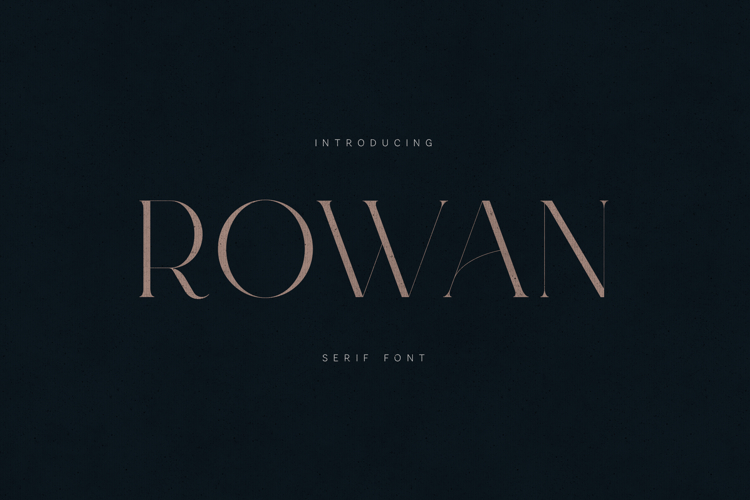
Rowan Elegant Modern Serif Font
Rowan is an elegant modern serif font designed with refined proportions, soft contrast, and graceful details. It blends classic serif structure with a contemporary aesthetic, making it ideal for sophisticated typography that feels timeless yet current.
With its slender strokes, smooth curves, and stylish alternates, Rowan is perfect for editorial design, luxury branding, fashion layouts, book covers, magazines, wedding designs, and premium visual identities. The font performs beautifully at both large display sizes and refined text applications.
Rowan includes uppercase and lowercase letters, numerals, punctuation, and extensive multilingual support, ensuring flexibility across international and professional design projects.